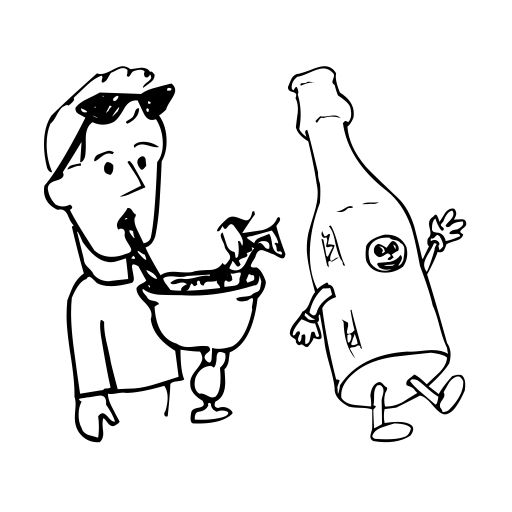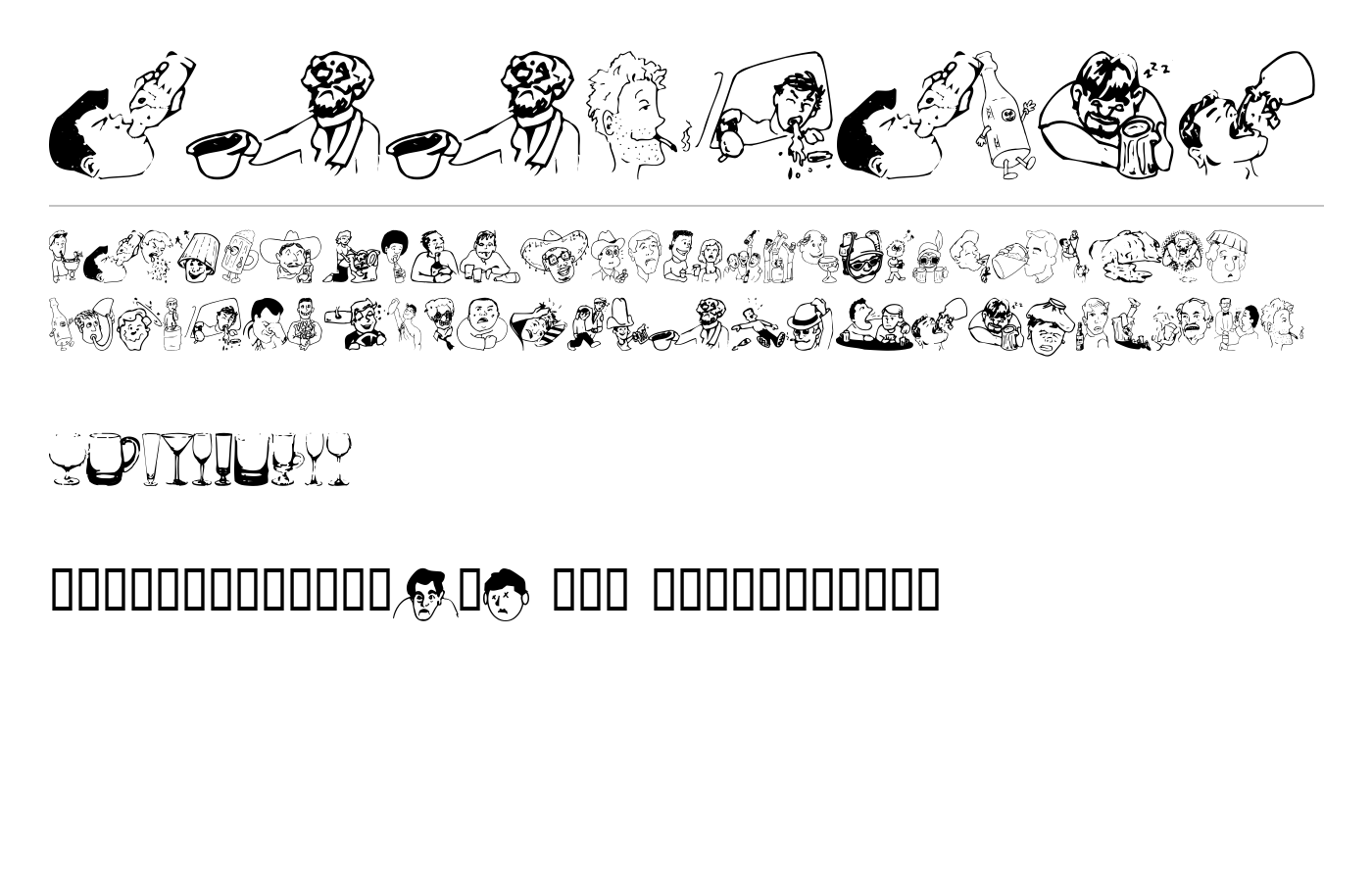
BoozeBats is a playful symbol font featuring quirky, hand-drawn illustrations of people drinking, various drinkware, and related humorous scenes. Rather than traditional letters, it uses detailed cartoon-style graphics that convey a lighthearted, informal vibe perfect for party invitations, bar menus, or casual event branding. This unique font brings a fun, social mood wherever a lively and whimsical touch is needed.